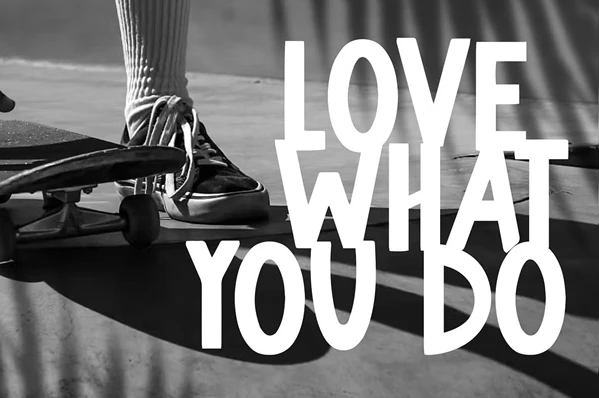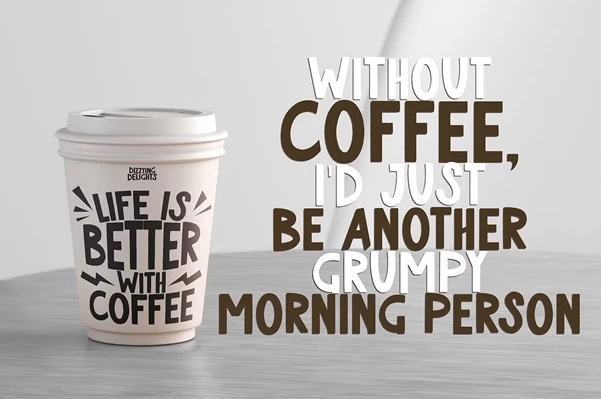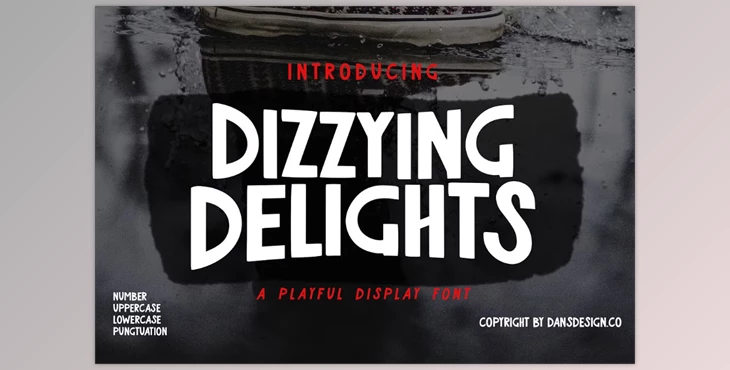
Dizzying Delights Playful Comic Font:
The Dizzying Delights comic font is ideal for businesses seeking a vintage touch in logo design or apparel. The typeface is tailored exquisitely, with elaborate details manifesting in a spirited comic shape. Unlike any other specialized face, it can serve many creative purposes due to its unique charm.
Some great features of Dizzying Delights Playful Comic Font: